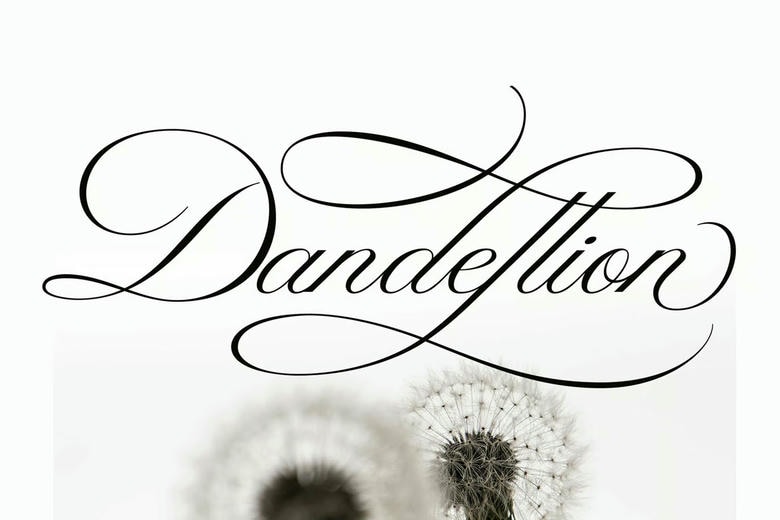
Dandellion Font
Dandellion is a calligraphy font that exudes elegance and beauty in every stroke. With its smoothly flowing characters and captivating details, this font is perfect for creating a luxurious and romantic look. Ideal for wedding invitations, branding, logos, product packaging, and various design projects that require an artistic and feminine touch.
Dandellion Calligraphy Script Font